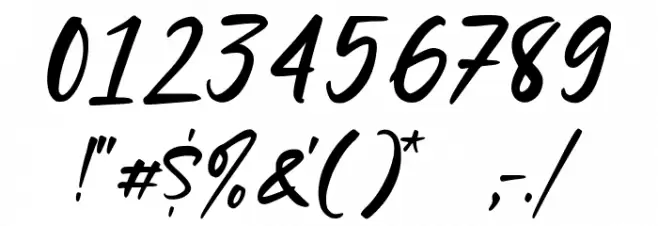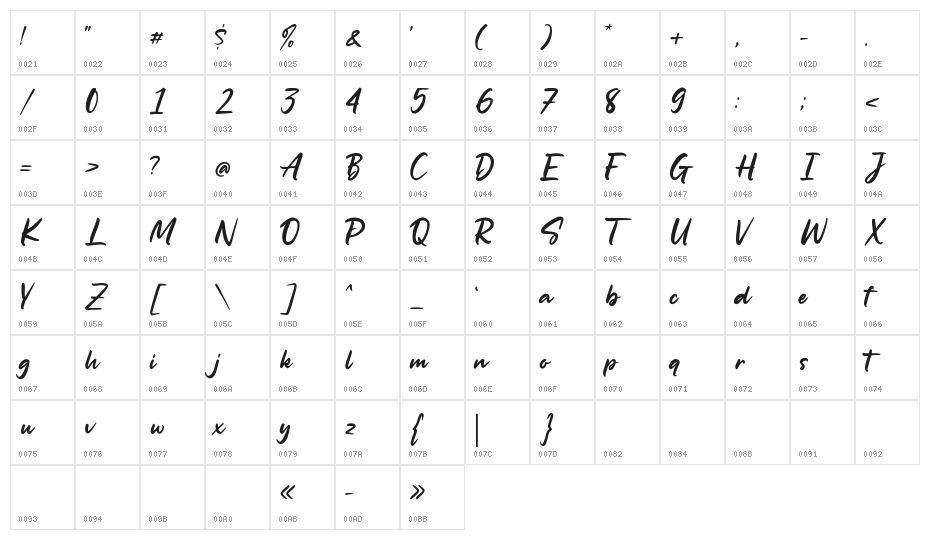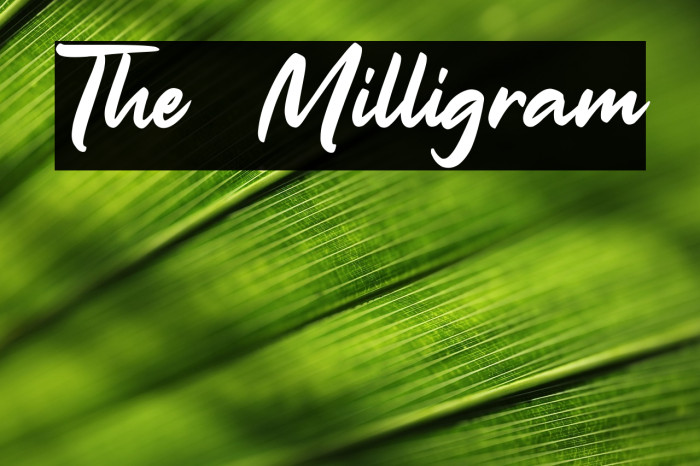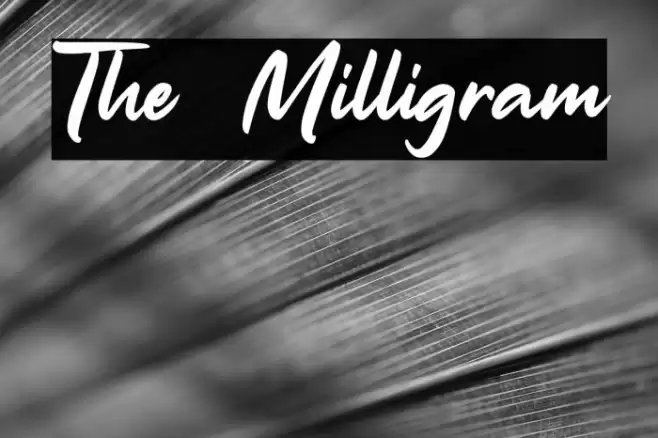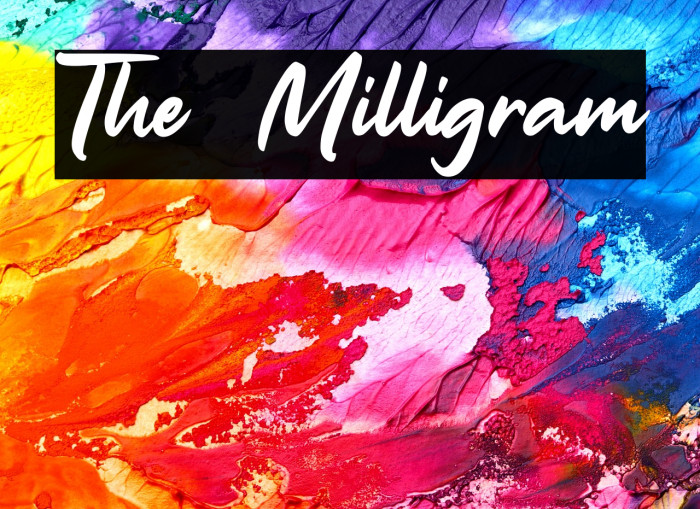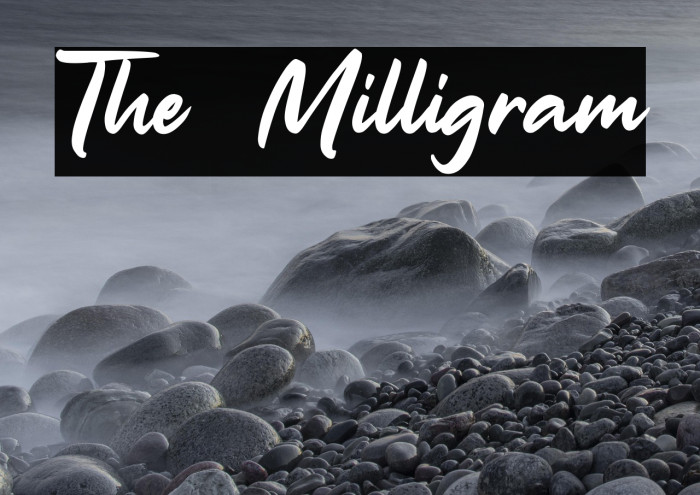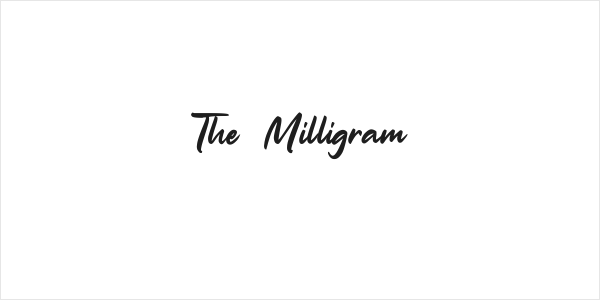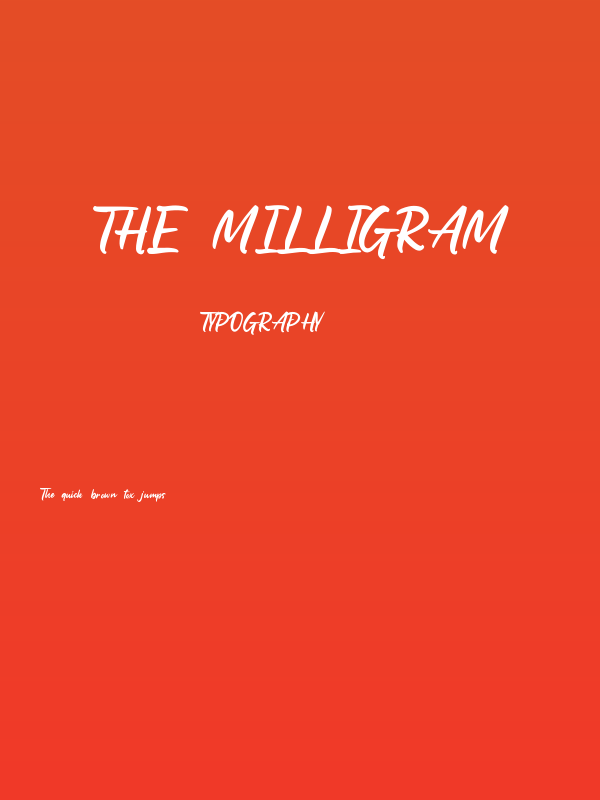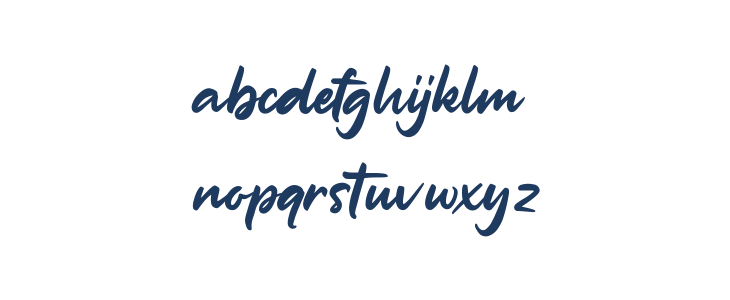
The Milligram Font
The Milligram Description
This font features a dynamic and flowing script style, characterized by its smooth, cursive letterforms that convey a sense of elegance and fluidity. The uppercase letters are bold and slightly slanted, giving them a sense of movement and energy. The lowercase letters maintain a consistent flow, with rounded edges and a natural, handwritten appearance. The numerals are well-integrated into the script style, maintaining the same fluidity and elegance. Special characters are designed to complement the overall aesthetic, ensuring a cohesive look across all text elements. This font is ideal for projects that require a personal touch, such as invitations, greeting cards, or branding materials that aim to convey sophistication and creativity.
Overall StyleElegant, Creative
Use CaseLogos, Headlines, Invitations
Proposed ProjectsIdeal for invitations, greeting cards, branding materials, and creative projects.